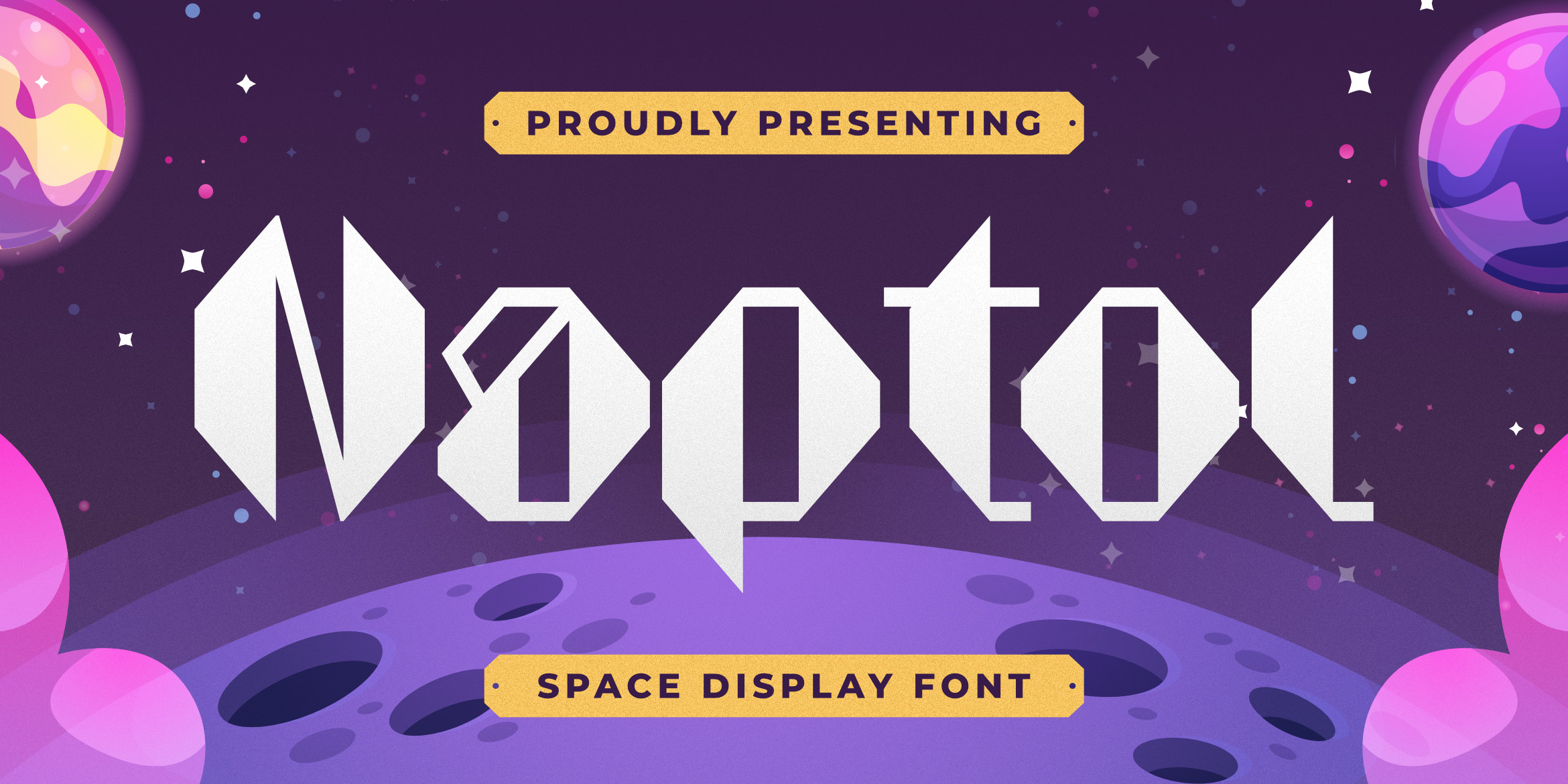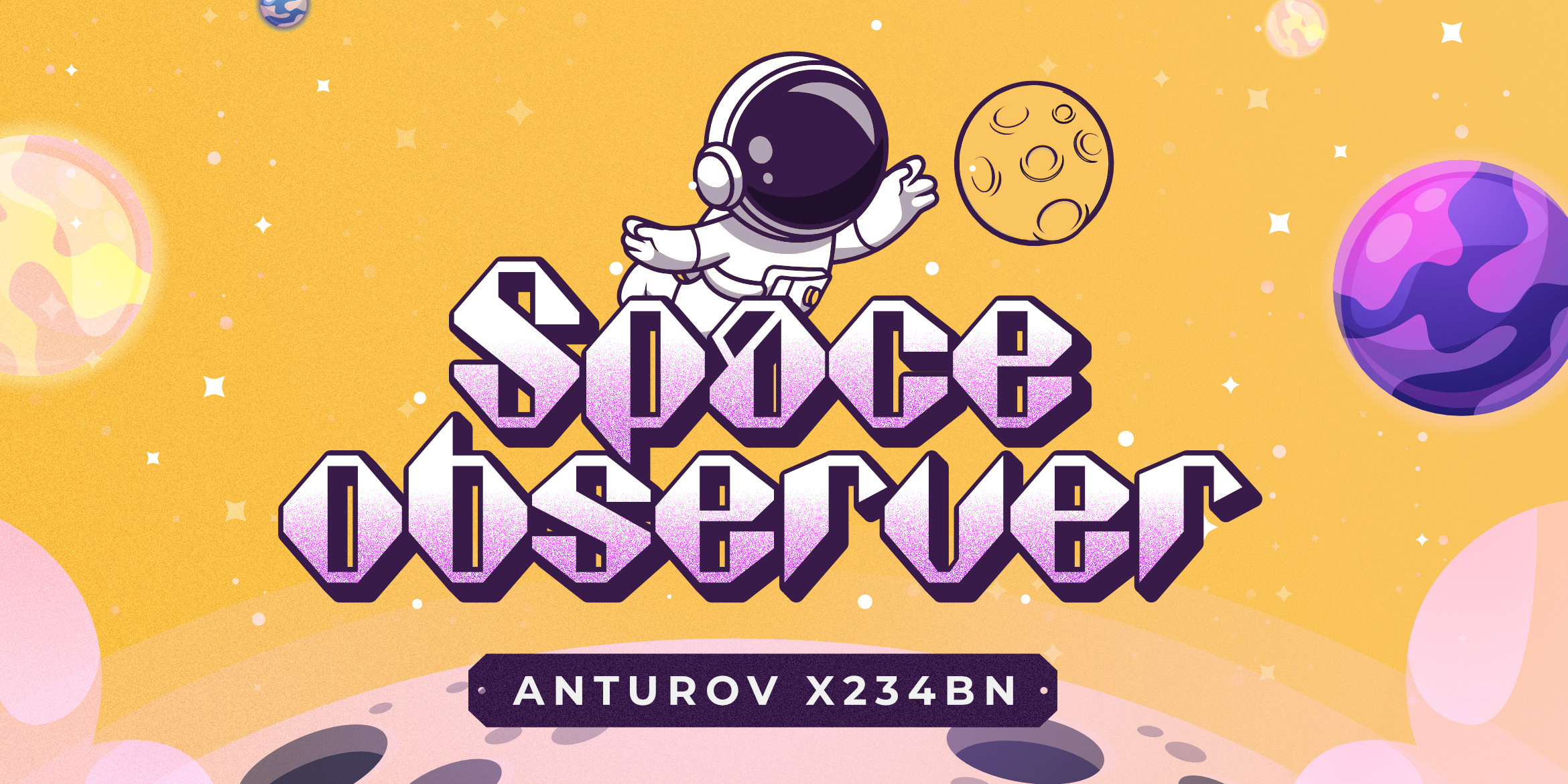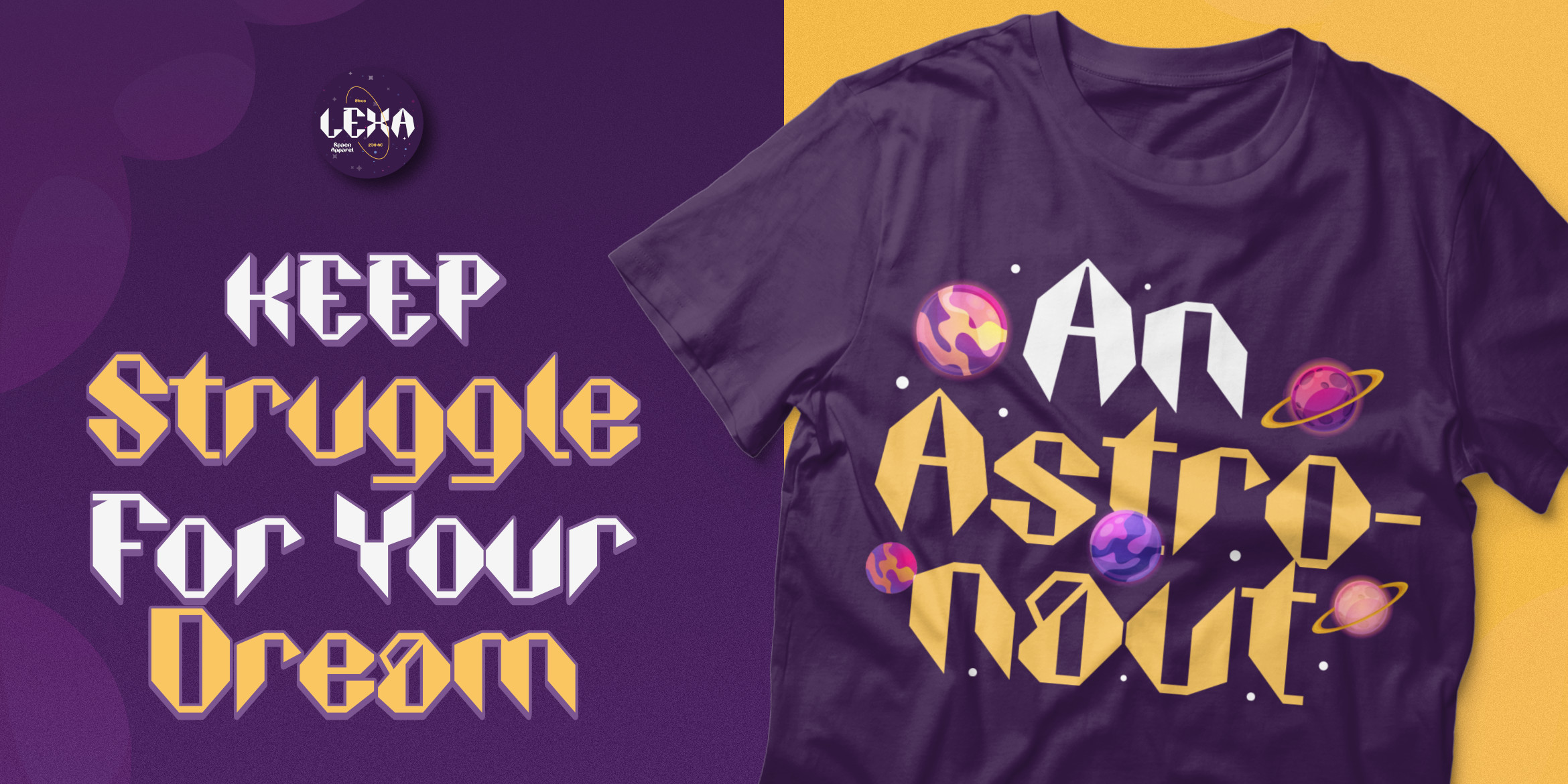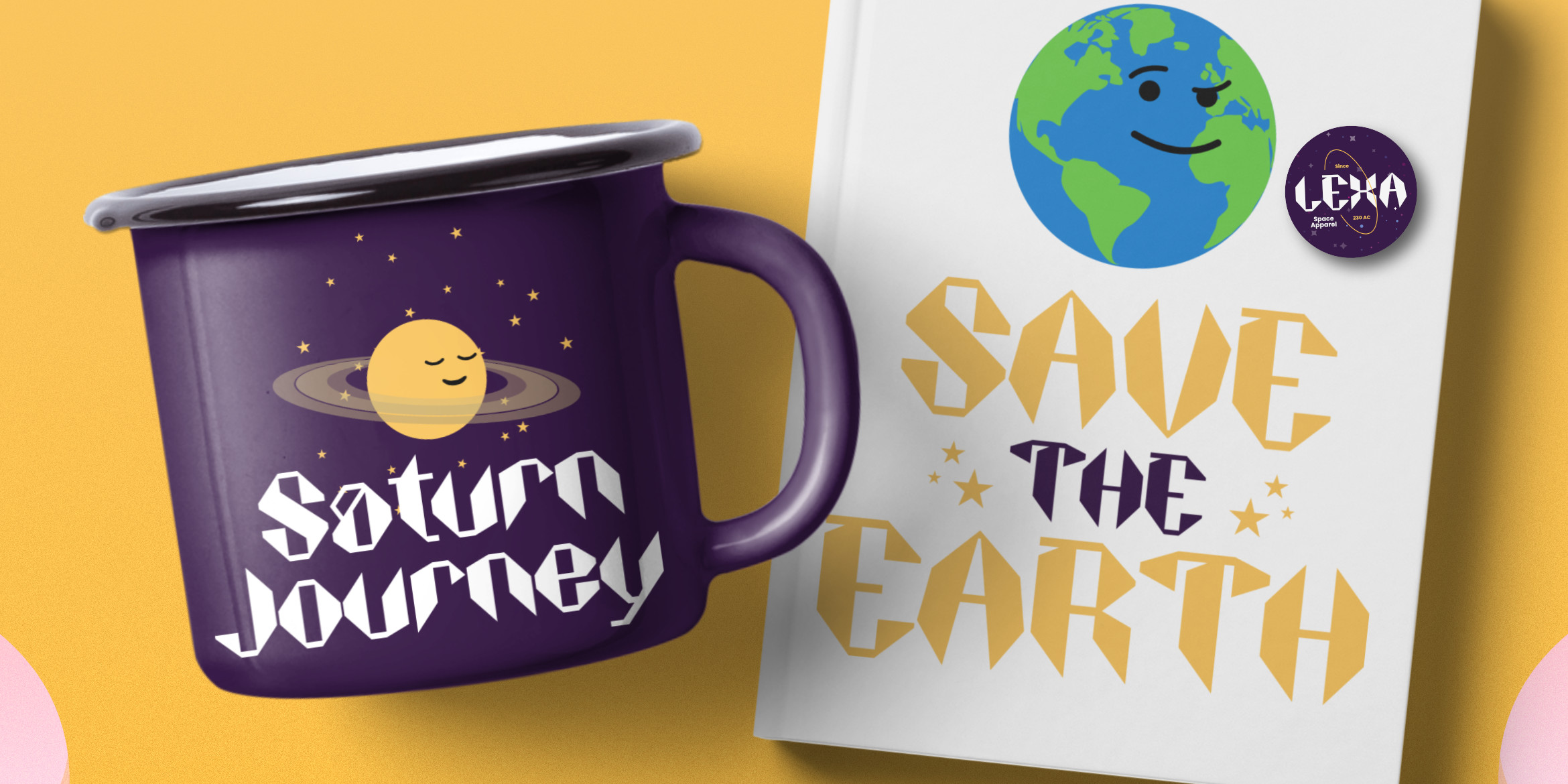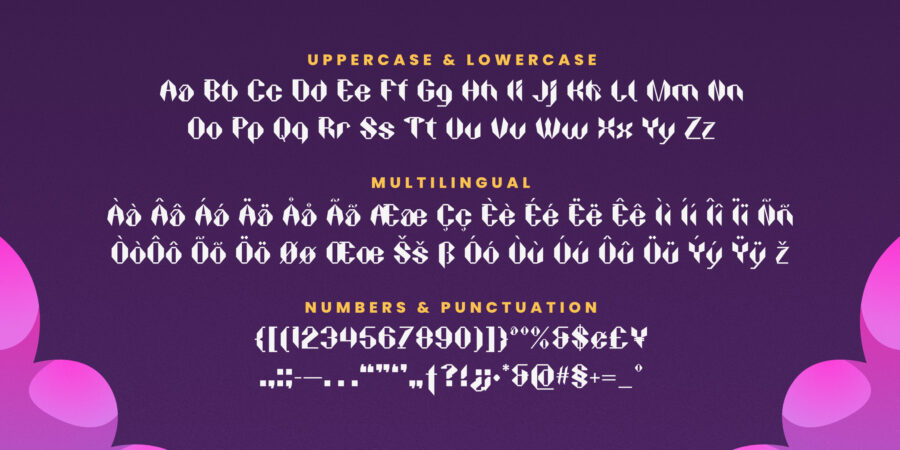
Naptol is a futuristic space-themed display font designed with bold geometric cuts and sci-fi flair. Inspired by outer space adventures and intergalactic visuals, Naptol brings a sense of mystery and exploration to your projects. The sharp, angular letterforms combined with modern Gothic-inspired structure make it a standout choice for headlines, posters, apparel designs, and anything that dares to venture beyond the stars.
Equipped with uppercase, lowercase, numbers, punctuation, and multilingual support, Naptol is versatile for both creative and professional use. Its unique style makes it perfect for projects related to games, comics, space missions, futuristic branding, and children’s content with an imaginative twist.